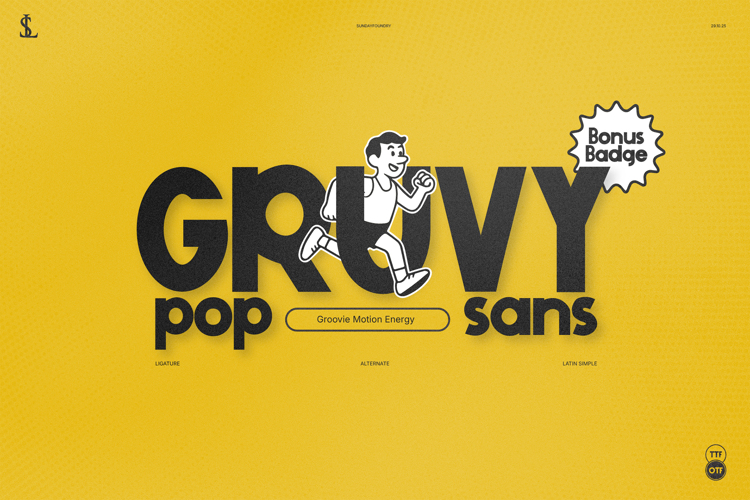
Gruvy Pop Sans (Demo Version) Font
Groovypop Sans is a bold display typeface that blends retro sport culture with modern editorial rhythm.
Designed to bring energy and movement into your typography, this font works perfectly for posters, logos, and sport-inspired designs.